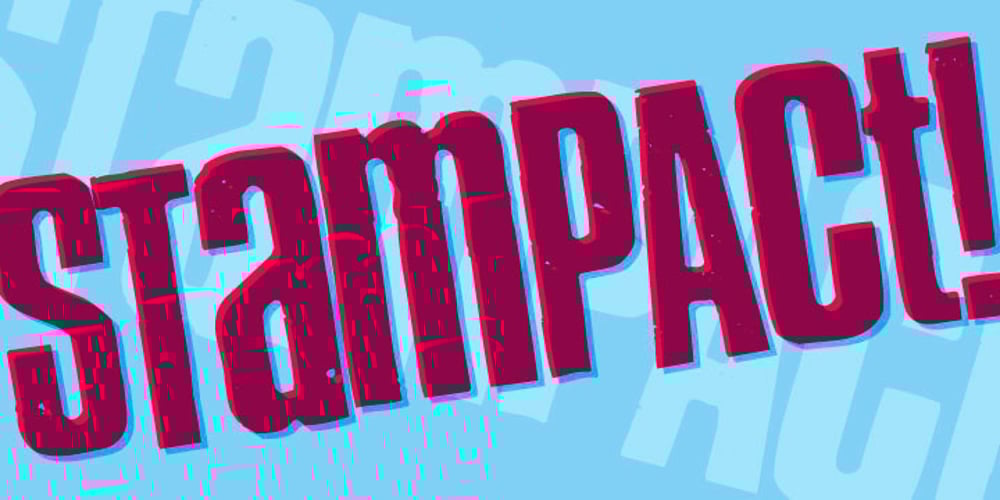
Stampact Font Family was designed by Mark Astle and published by Spark Creative. Stampact contains 1 styles and family package options. This is a woodblock, printed, distressed, ‘stamped’ kinda font. It jumps all over the place, with no respect for the baseline.